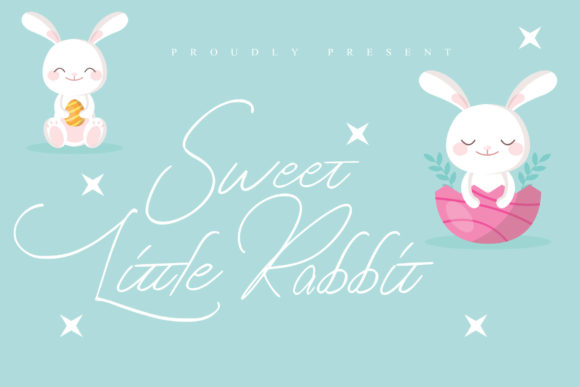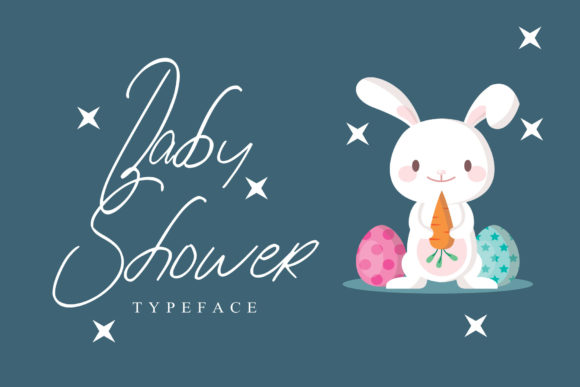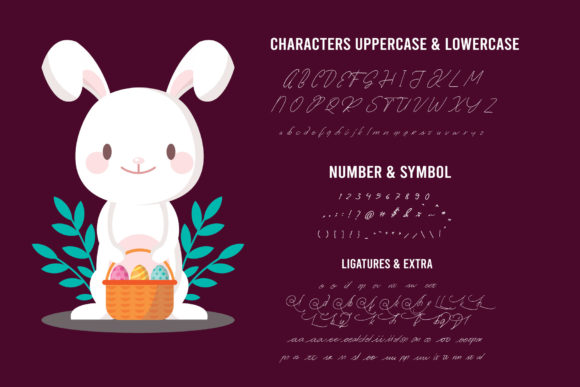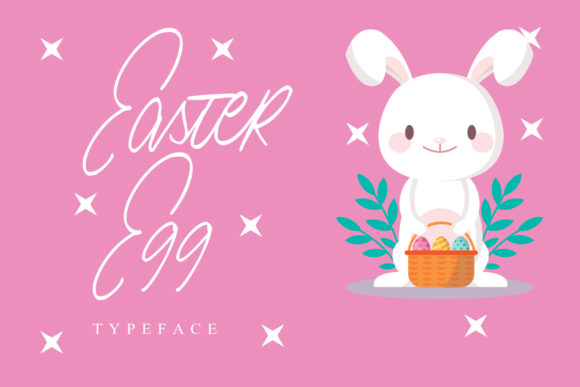
Sweet Little Rabbit Font
About Sweet Little Rabbit Font
Sweet Little Rabbit is a cursive and refined script font. It has a classy, elegant and modern look that can be used for logos, branding, invitations, stationery, wedding designs, social media posts, and much more! Sweet Little Rabbit is PUA encoded which means you can access all of the glyphs and swashes with ease!